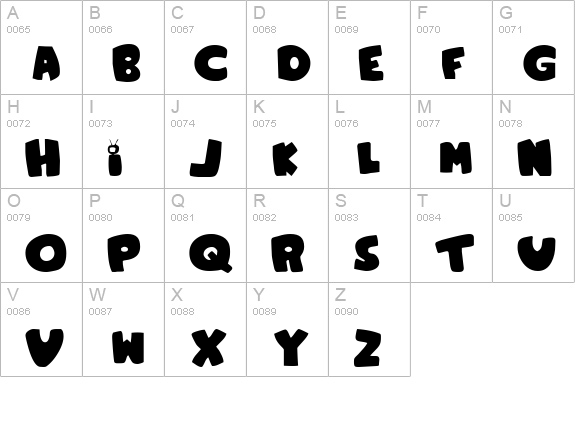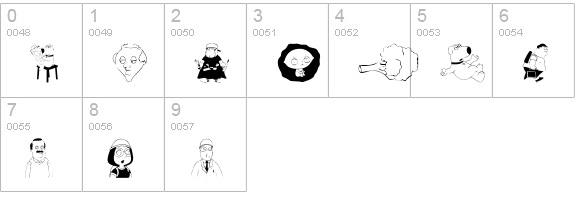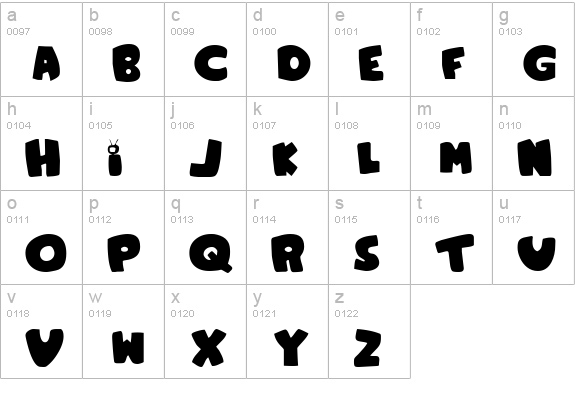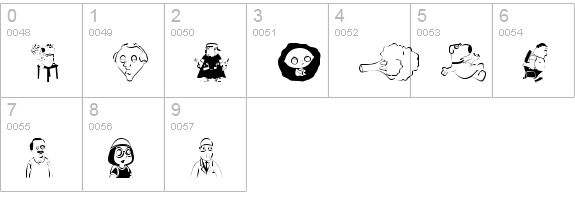
Family Guy Font Details
The Family Guy font is a playful and whimsical typeface inspired by the popular animated TV show. With its quirky and unique design, this font captures the essence of the show's humor and irreverence. Perfect for adding a touch of fun to your projects, the Family Guy font is sure to make a statement. Best of all, this font is available for free download at FontsMarket.com. With just a few clicks, you can add this fun and distinctive font to your collection and start using it in your designs right away. Don't miss out on the opportunity to bring some Family Guy charm to your projects with this free and easy-to-access font.